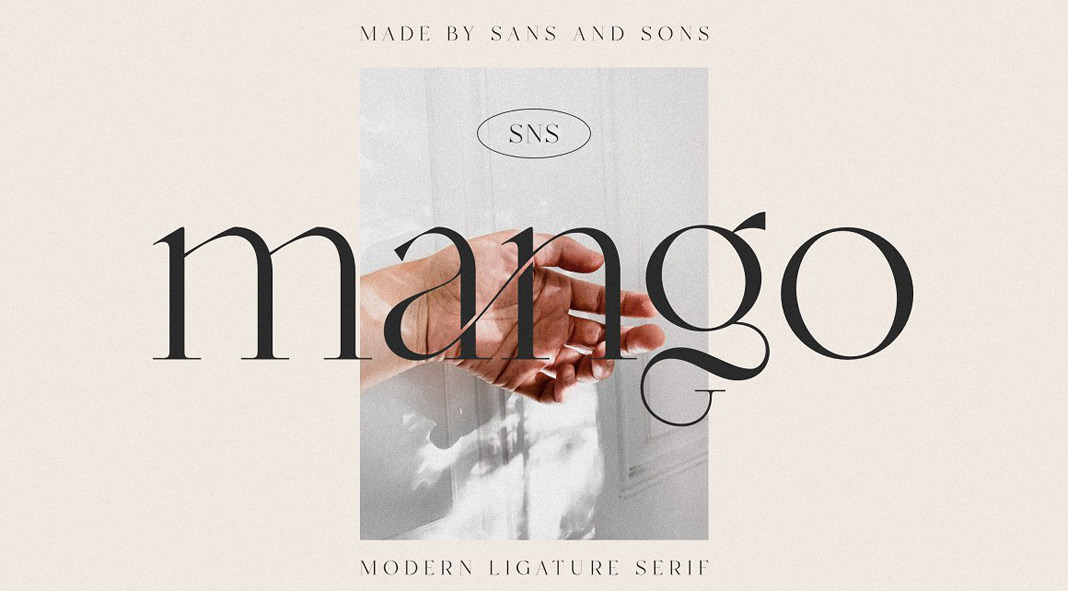
Mango, a modern serif font family by Sans & Sons that drawn inspiration from elegant vintage lettering.
Just have a look at this beautiful and playful typeface. Mango was designed and published by Sans & Sons with the aim to create a modern serif font inspired by elegant vintage lettering. Equipped with numerous ligatures, it’s fun to use this font in a variety of projects ranging from branding to packaging design. Its versatile weights range from Extra Light to Extra Bold and the extensive character set supports several languages including English, French, Italian, Spanish, Portuguese, German, Swedish, Norwegian, Danish, Dutch, Finnish, Indonesian, Malay, Hungarian, Polish, Turkish, Slovenian. To learn more, just click on one of the following links.